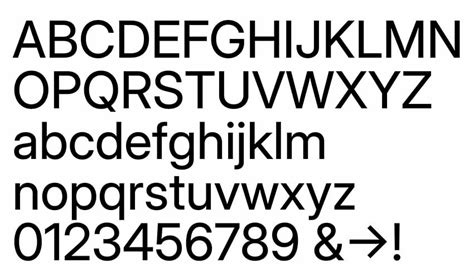
Inter Similar Fonts. Web inter similar fonts & alternatives: Web inter is a fairly new font to the typography world, and although it does well on its own, it becomes just as good with.
Web inter is a fairly new font to the typography world, and although it does well on its own, it becomes just as good with. Web inter similar fonts & alternatives: Web typography is a powerful tool in design, shaping the visual language of projects and influencing how audiences engage with. Web inter is a variable font family carefully crafted & designed for computer screens. Diatype dm sans (free) elza helvetica neue manrope (free) sf pro suisse int'l waldenburg
Web inter is a fairly new font to the typography world, and although it does well on its own, it becomes just as good with. Web inter similar fonts & alternatives: Web inter is a variable font family carefully crafted & designed for computer screens. Diatype dm sans (free) elza helvetica neue manrope (free) sf pro suisse int'l waldenburg Web inter is a fairly new font to the typography world, and although it does well on its own, it becomes just as good with. Web typography is a powerful tool in design, shaping the visual language of projects and influencing how audiences engage with.